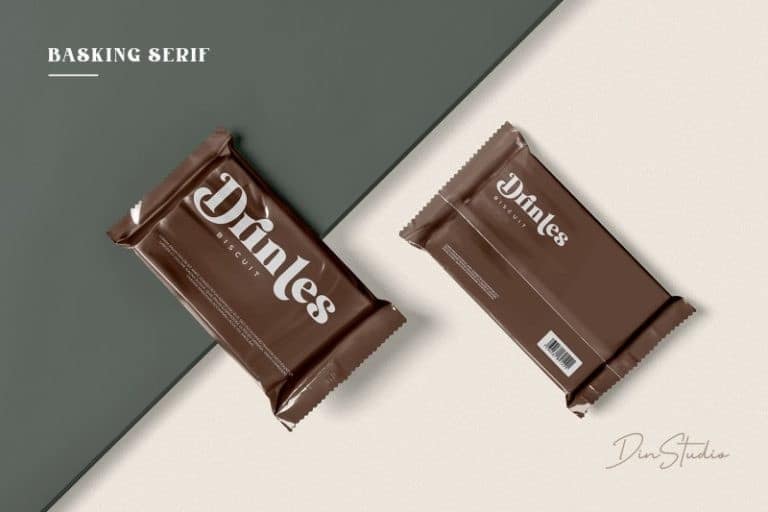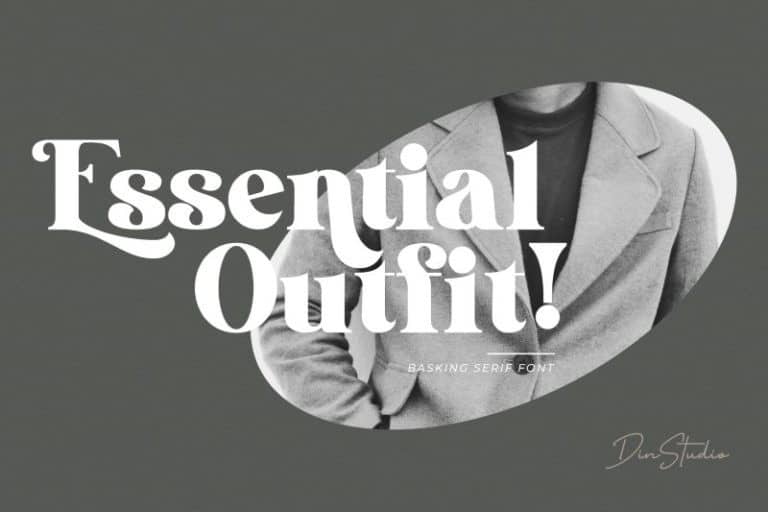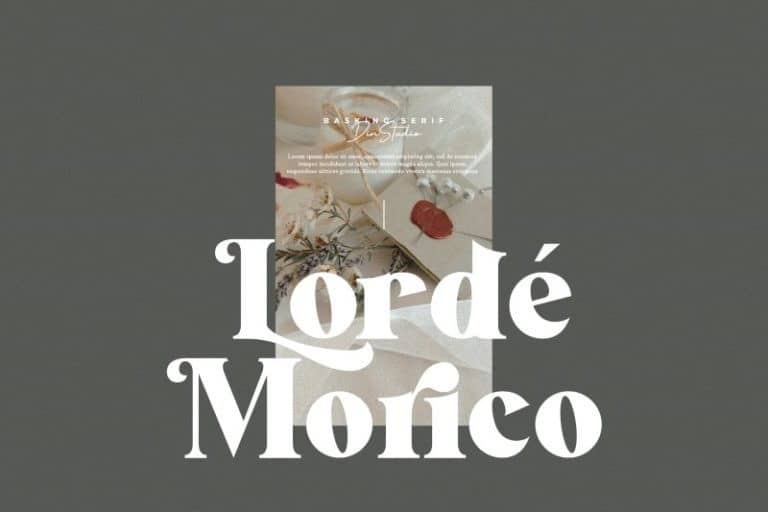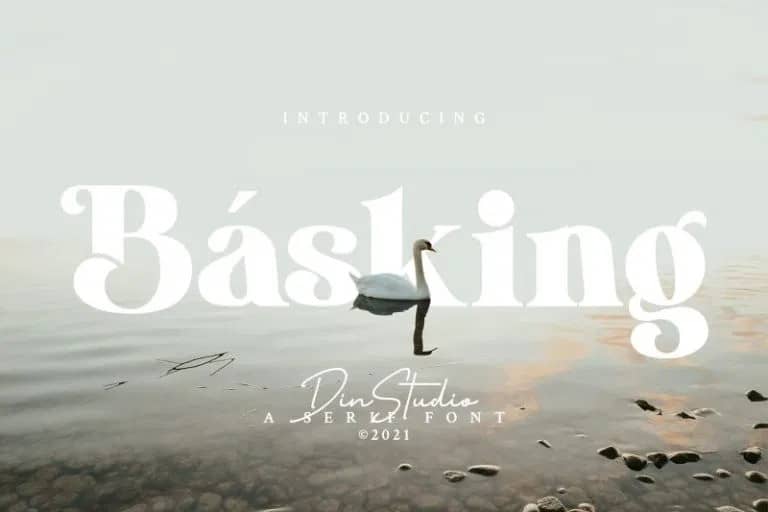
Basking Serif Font is a fabulous bold serif display typeface that’ll engage your audience and make your branding stand out from the competition. This font can be used for a host of different content needs and projects. Perfect for social media branding projects, fashion designs, printed quotes, packaging, or even as a stylish text overlay to any background image.